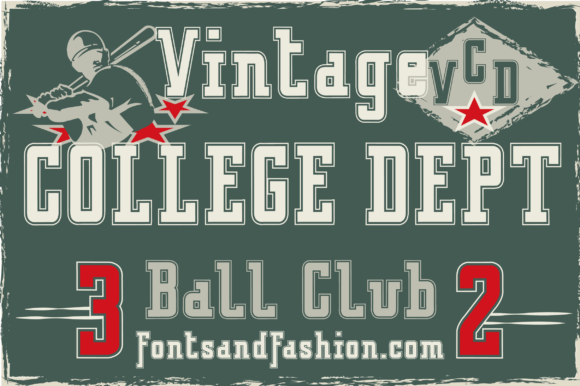
Looking for a font that will make your work stand out? Look no further than VINTAGE COLLEGE DEPT_Outline, a fancy variant of the popular slab serif font created by Fontsandfashion. With its sporty character and eye-catching outline, this font is perfect for adding a touch of uniqueness to any project.
The unique outline of VINTAGE COLLEGE DEPT_Outline sets it apart from its pure version, giving it a distinct and captivating appearance. Whether you're designing a logo, creating a poster, or crafting a website, this font will instantly grab attention and leave a lasting impression.
What makes VINTAGE COLLEGE DEPT_Outline truly special is its ability to elevate your work to new heights. Its bold and confident style evokes a sense of nostalgia, reminiscent of vintage college days. By using this font, you'll create a connection with your audience and evoke emotions of excitement, nostalgia, and adventure.
But it's not just about looks. VINTAGE COLLEGE DEPT_Outline is also highly versatile and practical. Its slab serif design ensures excellent readability, making it suitable for both headlines and body text. You won't have to worry about sacrificing legibility for style – this font offers the best of both worlds.
When you download VINTAGE COLLEGE DEPT_Outline, you're not just getting a font; you're gaining a powerful tool that will transform your designs. It's like having a secret weapon in your creative arsenal. Whether you're a professional designer or a hobbyist, this font will inspire you to push the boundaries and explore new possibilities.